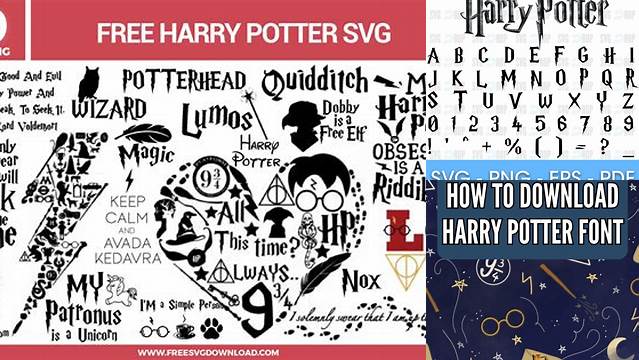
Download Free Harry Potter Font SVG For Magical Crafts
Hey there, fellow Potterheads! Are you looking to add a touch of magic to your crafting projects? Well, you've come to the right place! This guide will take you through the wonderful world of free Harry Potter font SVG downloads. Whether you're a seasoned crafter or just starting, these fonts are perfect for adding that wizarding flair to your designs. Let's dive in and explore how you can download and use these fonts to create magical masterpieces.
1. Understanding Harry Potter Font SVG
Before we jump into the downloads, let’s understand what exactly a Harry Potter font SVG is. SVG stands for Scalable Vector Graphics, which means these fonts are vector-based. Unlike raster images (like JPEGs or PNGs), SVGs can be scaled to any size without losing quality. This makes them perfect for a wide range of projects, from small decals to large banners. Imagine creating a giant Hogwarts crest for your wall – with SVGs, it’s totally doable! The Harry Potter font SVG typically refers to fonts that mimic the iconic lettering seen in the Harry Potter books and films. These fonts capture the whimsical and slightly gothic style that we all associate with the Wizarding World. Using these fonts can instantly transform your project, adding that magical touch we all crave.
3. Identifying the Original Harry Potter Font
If you’re a true purist, you might be wondering what the original Harry Potter font actually is. The fonts most closely associated with the Harry Potter series are often referred to as “Harry P” or “Hallows Eve.” However, the actual font used for the book titles and logos is a custom design. This means you won't find an exact match readily available for download. But don't worry! There are plenty of similar fonts that capture the essence of the Harry Potter aesthetic. Fonts like Parry Hotter and Magic School are popular alternatives that closely resemble the original. These fonts have the same whimsical and slightly spooky feel, making them perfect for your magical creations. Understanding the nuances of the original font helps you choose the best alternative for your project, ensuring your designs are as authentic as possible.
6. Using the Font in Design Software
With your Harry Potter font installed, you're ready to start using it in your favorite design software. Whether you're a fan of Adobe Illustrator, Cricut Design Space, or Inkscape, the process is generally the same. Open your design software and create a new document or project. Select the text tool and type your desired text. Then, highlight the text and choose your newly installed Harry Potter font from the font dropdown menu. Voila! Your text should now appear in the magical font you've chosen. You can adjust the size, color, and other properties of the text to suit your design. Using the font in design software opens up a world of possibilities, from creating custom invitations to designing your own Harry Potter-themed merchandise.
7. Creating Harry Potter-Themed SVGs
Beyond just using the font for text, you can also use it as a base for creating Harry Potter-themed SVGs. Imagine creating a silhouette of the Hogwarts castle using the font as a guide, or designing a custom Marauder's Map with intricate lettering. The possibilities are endless! Start by outlining the letters or using them as a template for your design. You can then add other elements, like stars, lightning bolts, or magical creatures, to create a unique SVG design. These themed SVGs are perfect for cutting machines like Cricut or Silhouette, allowing you to create decals, stickers, and iron-on transfers for clothing. Guys, get creative and let your imagination run wild!
8. Using SVG Fonts for Cricut Projects
Speaking of cutting machines, SVG fonts are particularly fantastic for Cricut projects. Cricut machines are designed to cut various materials, including vinyl, paper, and fabric, making them perfect for crafting. Using Harry Potter font SVGs with your Cricut allows you to create personalized decorations, gifts, and apparel with a magical touch. For example, you could cut out the font in vinyl to create a custom decal for your laptop or car. Or, you could use iron-on vinyl to create a Harry Potter-themed T-shirt. To use the font in Cricut Design Space, simply upload the SVG file and insert it into your project. Then, adjust the size and position as needed and send it to your Cricut machine for cutting.
9. SVG Fonts for Silhouette Projects
Just like Cricut, Silhouette machines also work seamlessly with SVG fonts. Silhouette machines are another popular choice for crafters, offering similar capabilities to Cricut. You can use Harry Potter font SVGs with your Silhouette to create a wide range of projects, from paper crafts to custom apparel. The process is similar to using a Cricut. You'll need to upload the SVG file into Silhouette Studio, the software used to control Silhouette machines. Once uploaded, you can adjust the size and position of the font and then send it to your Silhouette for cutting. Imagine creating intricate paper cutouts of Harry Potter quotes or designing a custom wall decal with your favorite character's name. With SVG fonts and a Silhouette machine, the possibilities are truly magical.
10. Designing Custom Harry Potter Invitations
Planning a Harry Potter-themed party? Custom invitations are a must! Using Harry Potter font SVGs, you can design invitations that are both magical and personalized. Start by creating a design in your favorite graphic design software. You can use the font to write the party details, such as the date, time, and location. Consider adding other Harry Potter-themed elements, such as the Hogwarts crest, golden snitches, or lightning bolts. You can even use different fonts to create a more dynamic and whimsical design. Once you're happy with your design, you can print the invitations at home or send them to a professional printer. To make your invitations extra special, consider using parchment paper or adding a wax seal. Your guests will feel like they've received an invitation straight from Hogwarts!
11. Creating Harry Potter-Themed T-Shirts
Show off your love for the Wizarding World by creating your own Harry Potter-themed T-shirts. With Harry Potter font SVGs and a cutting machine like Cricut or Silhouette, you can easily design and cut out iron-on vinyl to create custom apparel. Start by choosing a design for your T-shirt. You could use a quote from the books, a character's name, or a symbol like the Deathly Hallows. Use the Harry Potter font to add text to your design. Once your design is finalized, cut it out of iron-on vinyl using your cutting machine. Then, use a heat press or iron to apply the vinyl to your T-shirt. Guys, wearing your creation is the ultimate way to flaunt your Potterhead pride!
12. Making Harry Potter-Inspired Wall Decals
Transform your living space with Harry Potter-inspired wall decals. Using Harry Potter font SVGs, you can create custom decals that add a touch of magic to any room. Think about creating a large-scale quote from the books to place above your bed, or designing a family name sign in the Harry Potter font for your entryway. Start by creating your design in your design software. Choose a font size that is appropriate for the space you're decorating. Cut the design out of vinyl using your cutting machine. Then, carefully apply the decal to your wall. Wall decals are a fantastic way to personalize your home and show off your love for Harry Potter.
13. Designing Harry Potter-Themed Mugs
Start your day with a touch of magic by designing Harry Potter-themed mugs. Using Harry Potter font SVGs, you can create custom decals for your mugs that are both fun and functional. You can use vinyl decals for mugs that are hand-washed or use sublimation for a more permanent design. Think about adding your favorite character's name to a mug or creating a quote that inspires you every morning. You can even design mugs for each Hogwarts house, making them perfect for a Harry Potter-themed gathering. Designing your own mugs is a fun and easy way to add a bit of magic to your daily routine.
14. Making Harry Potter-Themed Stickers
Stickers are a fun and versatile way to show off your fandom, and Harry Potter-themed stickers are no exception! Using Harry Potter font SVGs, you can design custom stickers that are perfect for decorating laptops, notebooks, water bottles, and more. You can print these stickers at home using sticker paper or have them professionally printed for a more durable finish. Design stickers with quotes from the books, character names, or symbols like the Golden Snitch or the Hogwarts crest. The possibilities are endless! Making your own stickers is a fun and affordable way to add a touch of magic to your everyday life.
15. Creating Harry Potter-Themed Bookmarks
As avid readers, we all know the importance of a good bookmark. Why not create your own Harry Potter-themed bookmarks using Harry Potter font SVGs? These make great gifts for fellow Potterheads or a special treat for yourself. You can create bookmarks from cardstock, laminate them for durability, and even add a tassel for a touch of elegance. Design bookmarks with quotes from the books, character names, or symbols associated with the series. You could even create a set of bookmarks representing each Hogwarts house. Guys, dive into the magic and make every reading experience a bit more enchanting!
16. Designing Harry Potter-Themed Cake Toppers
Planning a Harry Potter-themed celebration? Cake toppers are a must-have! With Harry Potter font SVGs, you can design custom cake toppers that add a magical touch to any cake. Use cardstock or glitter paper to cut out letters, shapes, and designs that reflect the Harry Potter universe. Think about creating a cake topper with the birthday person's name in the Harry Potter font, or designing a topper with the Hogwarts crest. You can also add other elements, like golden snitches or lightning bolts, to make the cake topper even more festive. Designing your own cake toppers is a fun and easy way to make your celebration extra special.
17. Making Harry Potter-Themed Party Decorations
Speaking of celebrations, let's talk about Harry Potter-themed party decorations. Harry Potter font SVGs can be used to create a wide range of decorations, from banners and signs to table centerpieces and more. Imagine decorating your party venue with banners that spell out